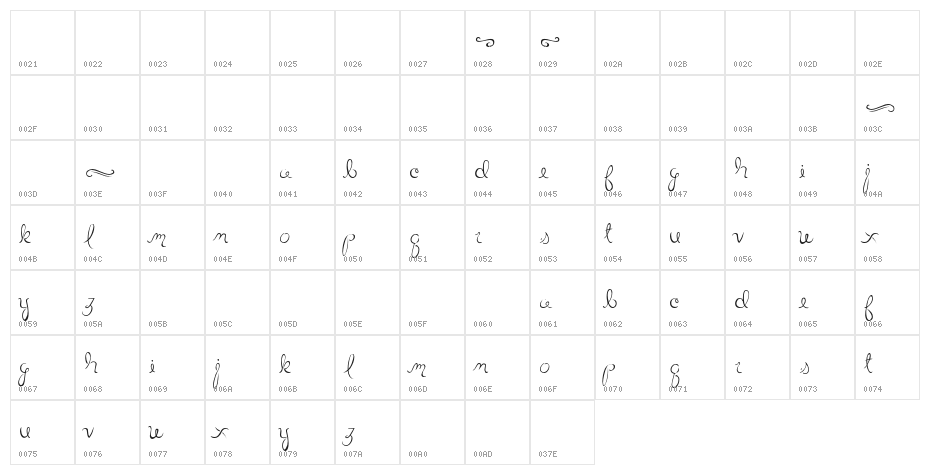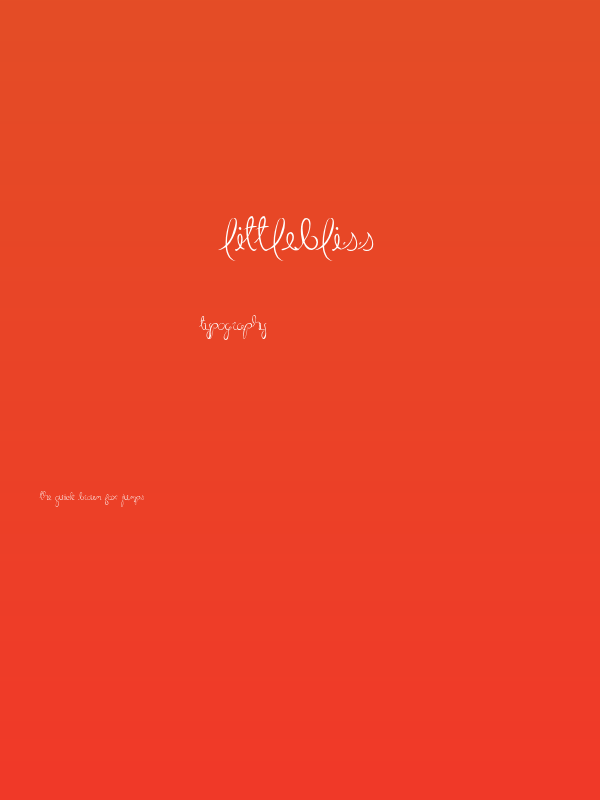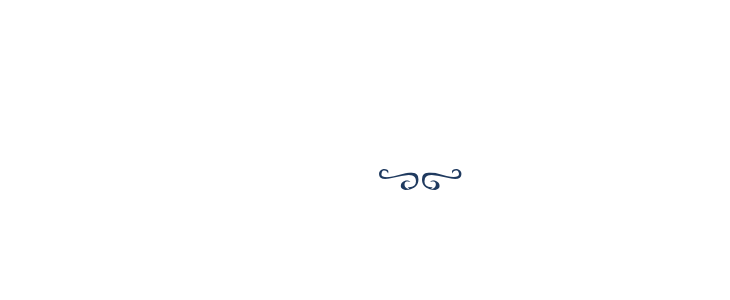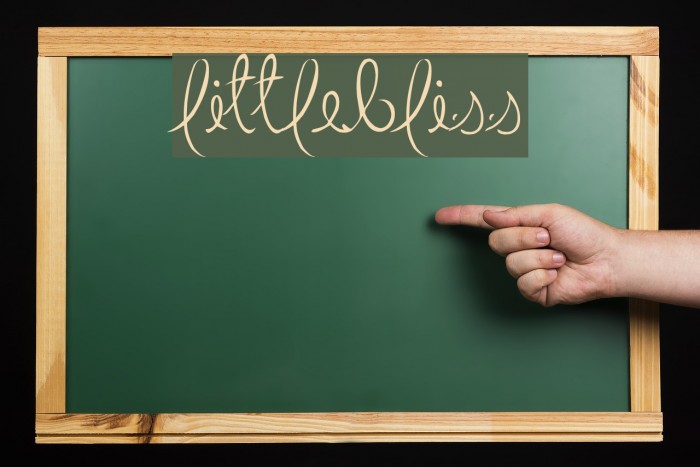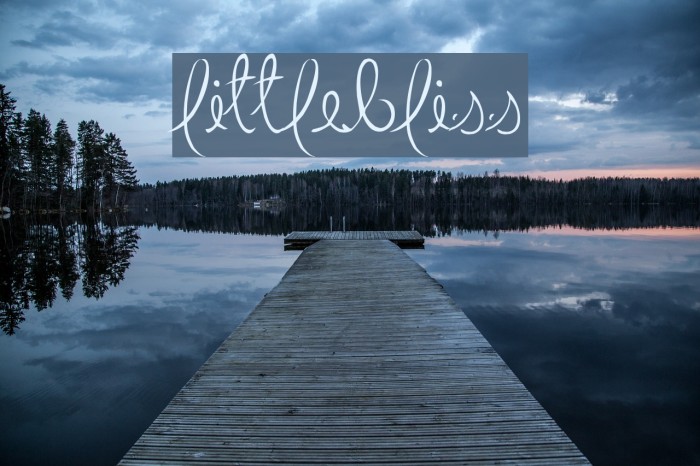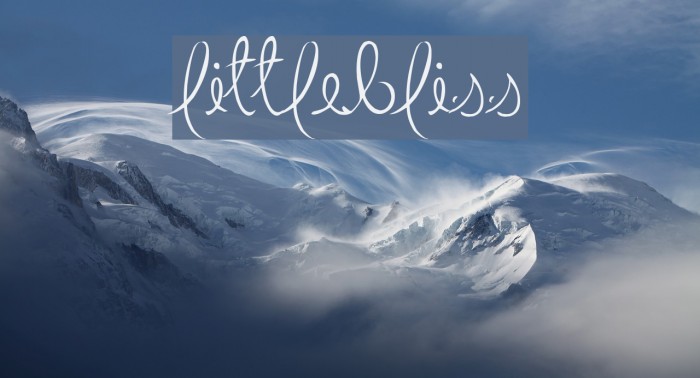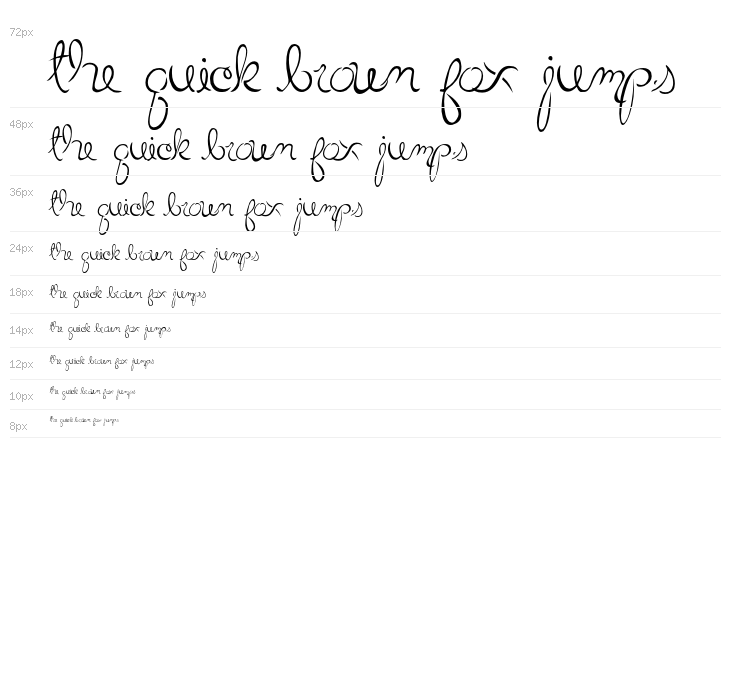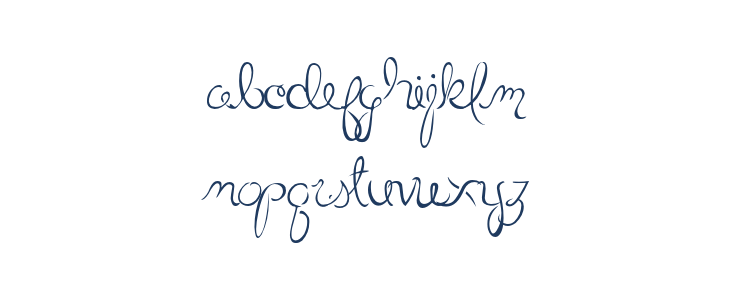
LittleBliss Font
LittleBliss Description
This font features a whimsical and playful handwritten style, characterized by its flowing curves and loops. The letters are interconnected with a fluid motion, giving it a sense of movement and elegance. The strokes vary in thickness, adding a dynamic contrast that enhances its artistic appeal. The overall design is reminiscent of calligraphy, with a modern twist that makes it suitable for creative and informal projects. Its unique style captures attention and adds a personal touch to any design.
| Use Case | Logos, Invitations, Artistic designs |
| Proposed Projects | Ideal for wedding invitations, greeting cards, personal branding, and artistic projects. |